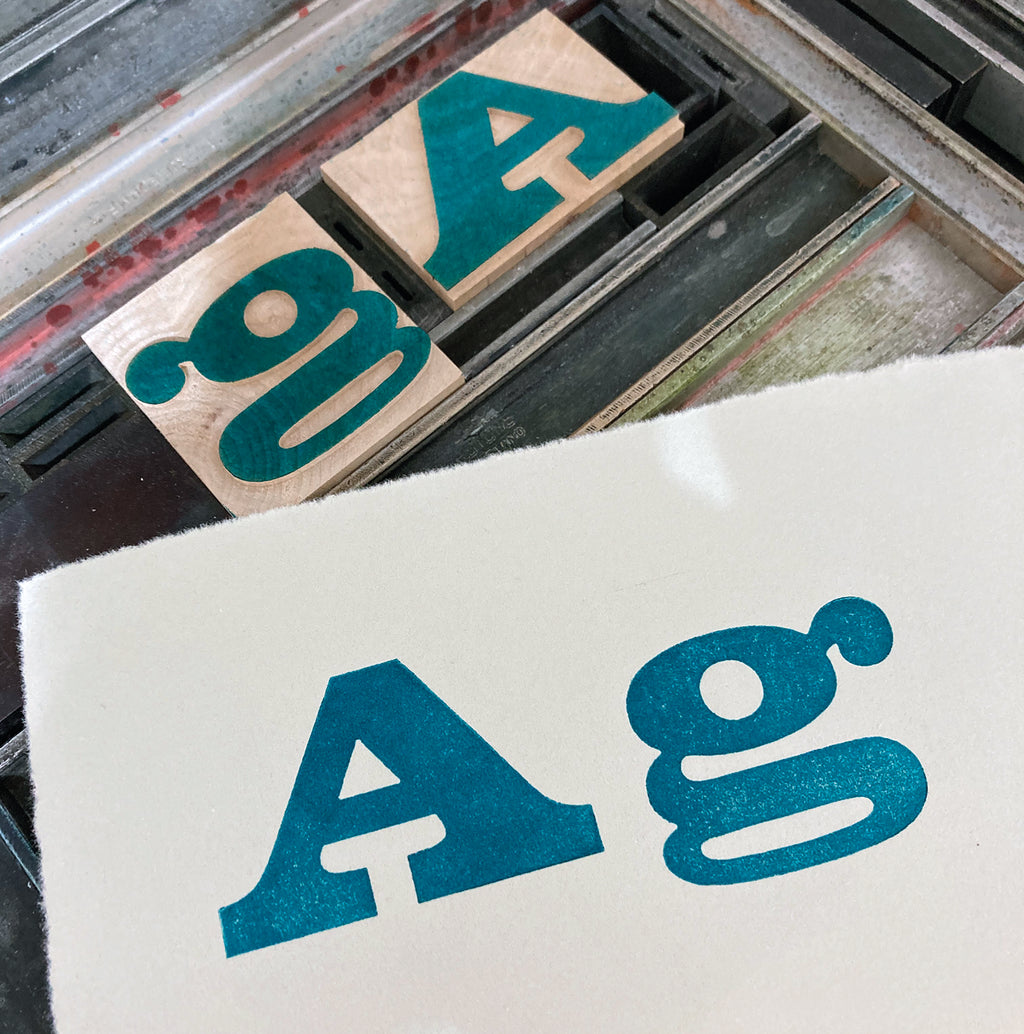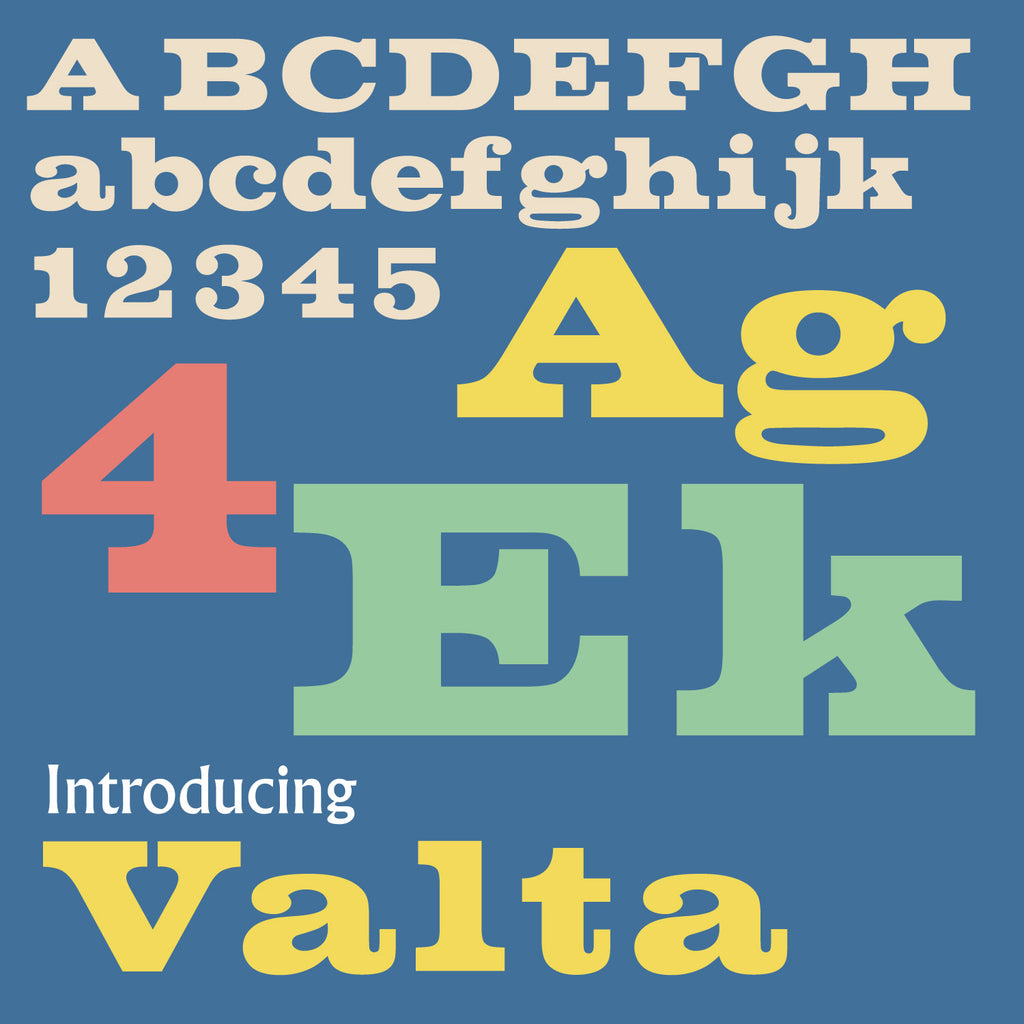
'Valta' letterpress woodtype typeface
Introducing 'Valta' - a redrawing of the classic metal typeface ‘Volta’ using printed sample sheets from the period. Originally designed by Konrad Bauer and Walter Baum in 1956 and available in woodtype for the first time.
10 line (42.3mm) version cut from end grain English Sycamore hardwood using a combination of modern CNC technology and traditional hand woodworking tools (including an original printers saw), made to English type-high (0.918in or 23.3mm) within plus or minus 0.1mm tolerance, sealed with shellac and hand finished with a traditional polished printing surface.
End grain English Sycamore, clear shellac
Each block varies in width however average size is 50 x 23.3 x 42.3mm